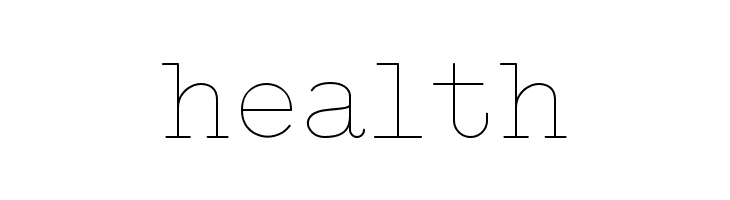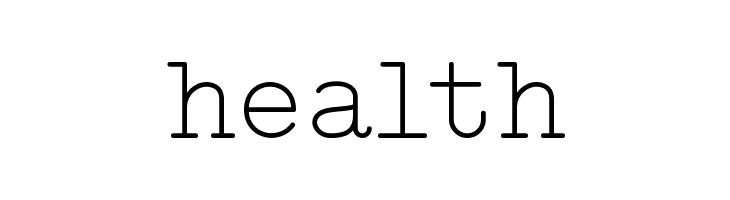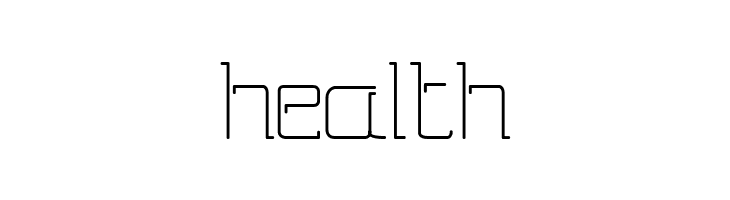
A monospaced font with a classic typewriter style, offering medium contrast and uniform character width.
A thin, monospaced typewriter-style font with a clean, minimalist design.
A monospaced font with a classic typewriter style, offering uniform spacing and clear legibility.
A bold, monospaced font with a playful and modern aesthetic.
A geometric, monospaced font with a modern, futuristic style.
A modern, monospaced font with consistent stroke thickness and high legibility.
A clean, modern monospaced font with uniform spacing and clear legibility.
A clean, modern monospaced typeface with uniform character width and geometric structure.
A monospaced oblique font with consistent width and medium contrast, ideal for technical use.
A bold, oblique, monospaced font with a modern and dynamic style.